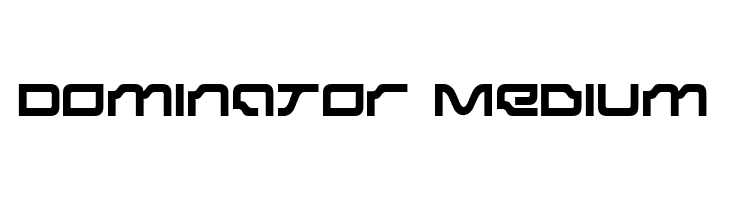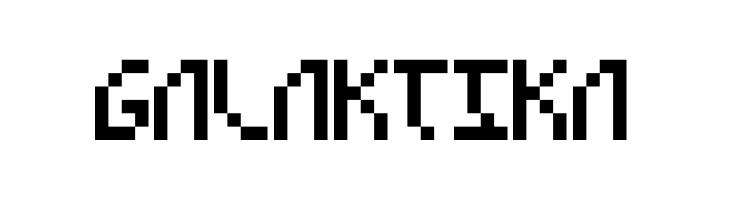
A geometric, futuristic font with a modular and minimalistic design.
A bold, geometric font with square and circular elements, ideal for modern designs.
A modern, monospaced font with a clean and uniform design, perfect for coding.
A futuristic, geometric font with bold, angular characters.
A clean, modern sans-serif font with uniform stroke width and excellent readability.
A pixelated, retro-style font with a digital, blocky appearance.
A bold, traditional music notation font for sheet music.
A calligraphic font with bold, flowing strokes and intricate detailing.
A playful, handwritten-style font with smooth, flowing curves.